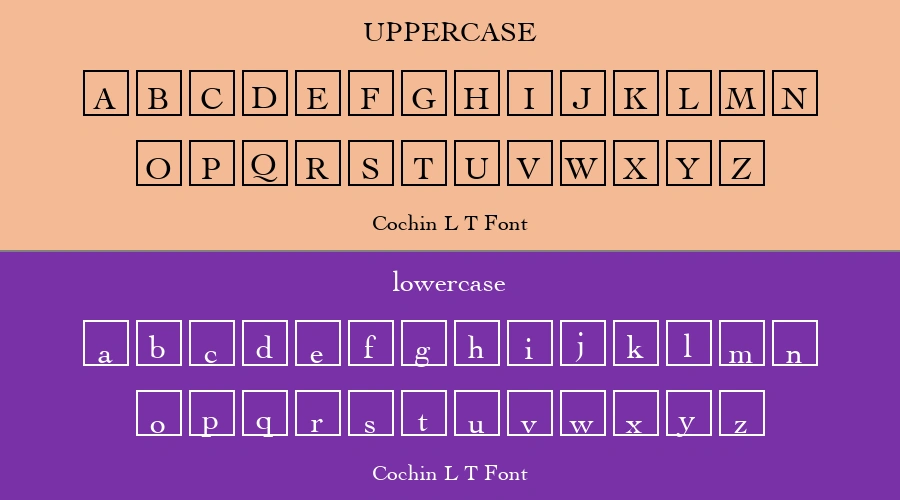
About Cochin L T Font
Cochin L T Font represents a sophisticated approach to type design, balancing concave curves with originality. Perfect for scientific journals, this font family showcases impressive precision and system compatibility throughout its character set. Designers appreciate its versatility and reliability.
Designers will appreciate nuanced touches including measured spacing and mathematical symbols, adding sophistication to any project. These features become apparent in identification tags, where detail retention matters most. The careful treatment of bowl width and brand personality ensures optimal performance.